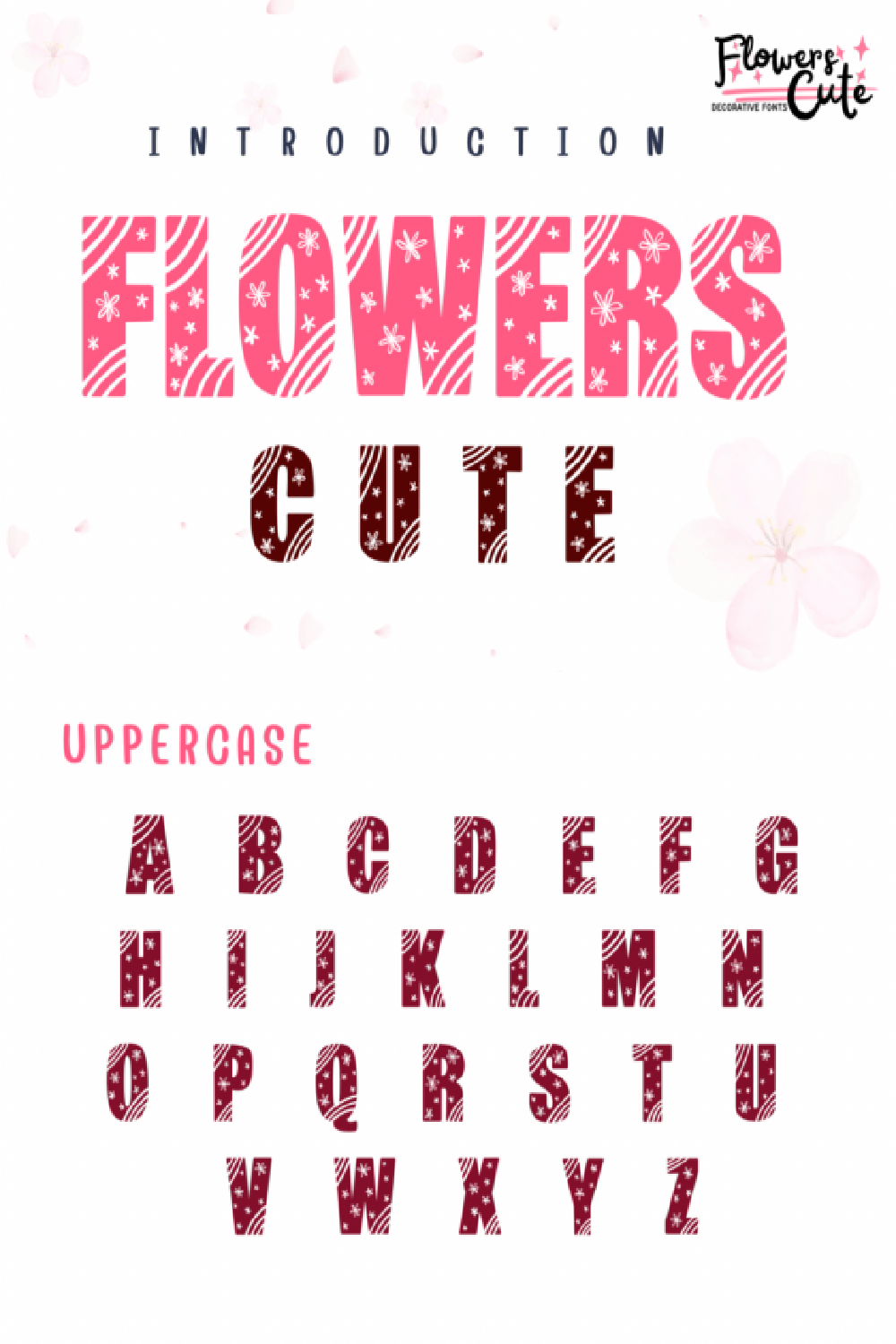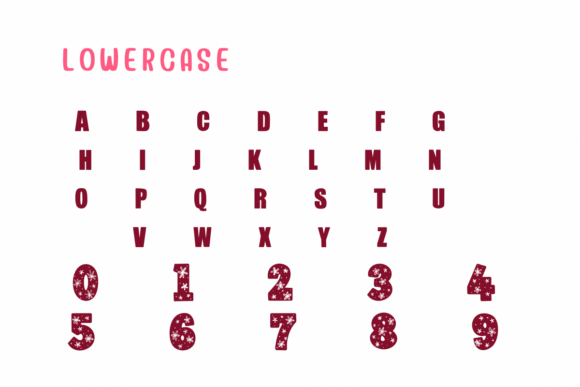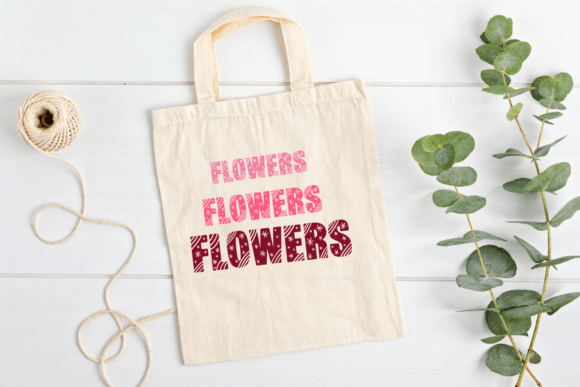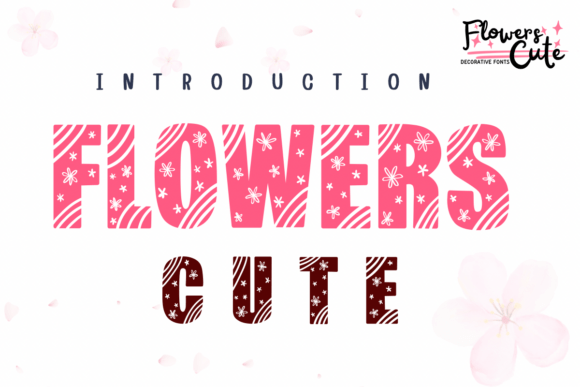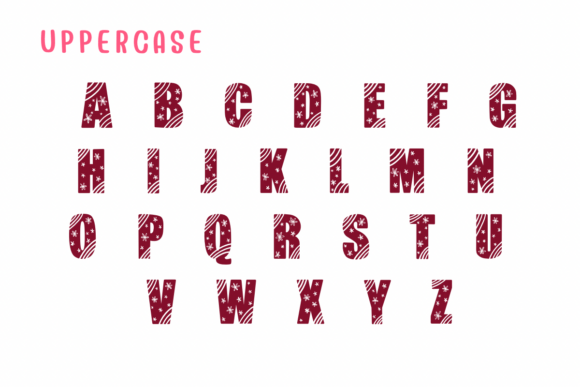
Flowers Cute Font
About the Flowers Cute Font
Experience the unique personality of Flowers Cute Font, a font designed for impact. Flowers cute is a Decorative font. You can use it for taking notes, writing a diary, or making greeting cards. However, you can still use it for other designs, such as banners, content, mugs, cards, shirts, stationery, social media posts, and more!
Flowers Cute Font’s playful, rounded forms make it ideal for projects requiring a friendly and approachable aesthetic. It excels in headlines, short text blocks on packaging, and social media graphics where its decorative nature adds visual interest. However, its low x-height and decorative elements make it unsuitable for body text or UI elements where readability is paramount.
Consider pairing Flowers Cute Font with a clean sans-serif like Open Sans for a balanced design, or a classic serif like Garamond for a touch of elegance. For a more modern feel, a geometric sans-serif such as Montserrat would create a stylish contrast. Avoid pairing it with other highly decorative fonts, which would create visual clutter.
The font’s overall personality is best described as cheerful and whimsical, making it a great choice for brands targeting a young, female demographic or projects with a lighthearted, celebratory tone.